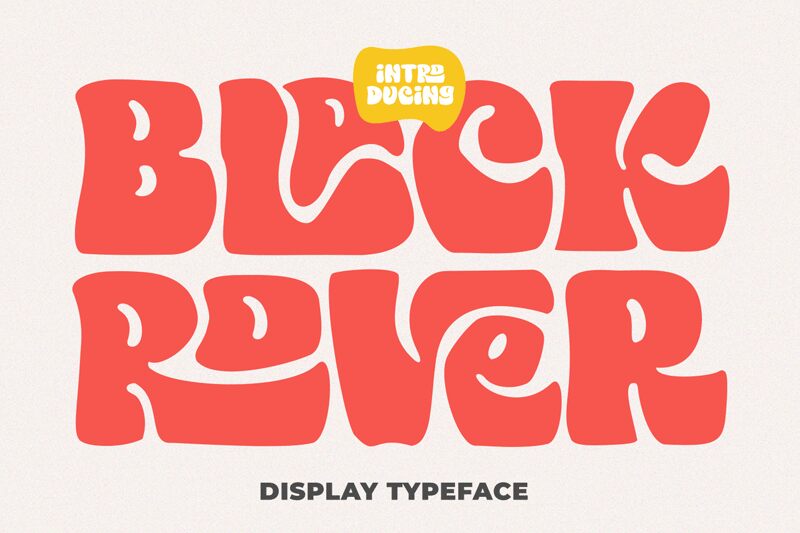
Black Rover, the brainchild of Zeenesia Studio, is a stunning display font that brings a groovy twist to your projects. Its extra-bold weight commands attention and adds a touch of retro coolness.
With semi-expanded width, it strikes the perfect balance between space and readability. Ideal for music festivals posters, vintage-inspired branding, or vibrant advertising campaigns, Black Rover exudes personality and sets your designs apart from the crowd.
Let this font take center stage and infuse your projects with a dynamic energy that captivates audiences.